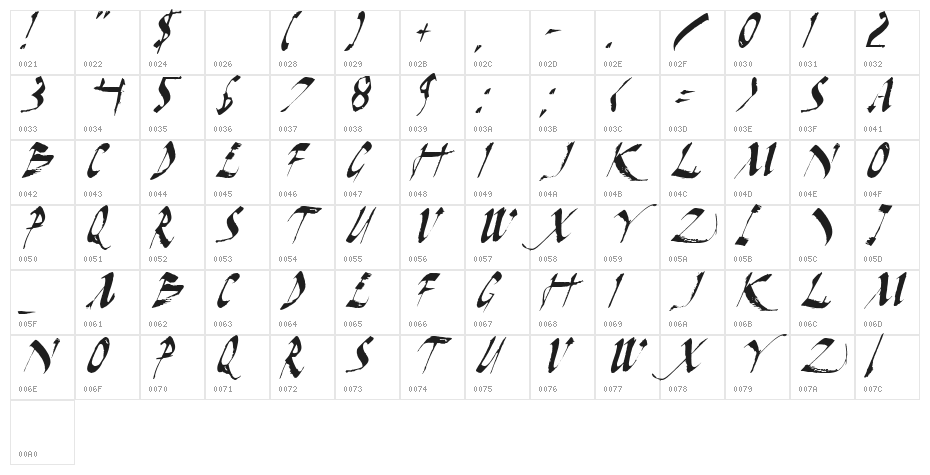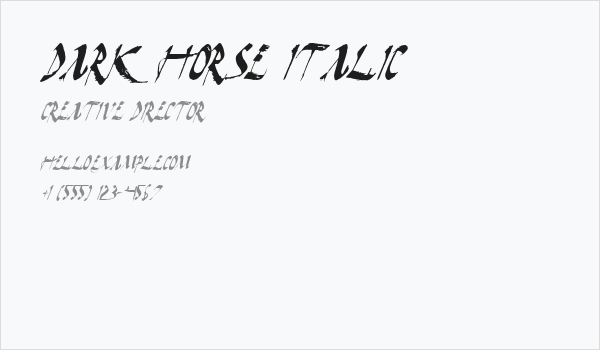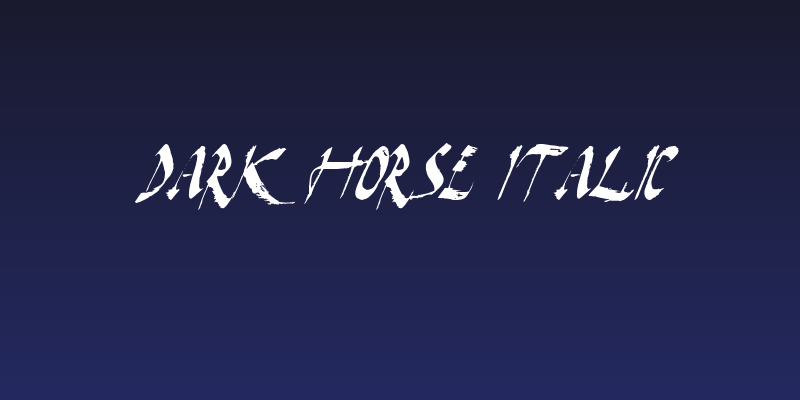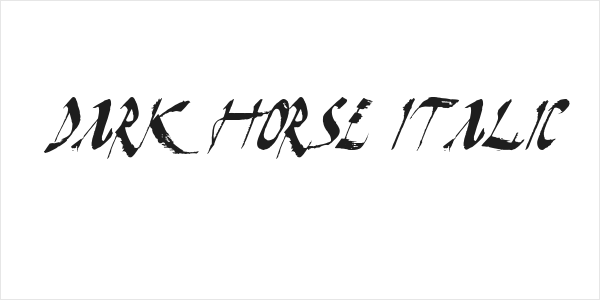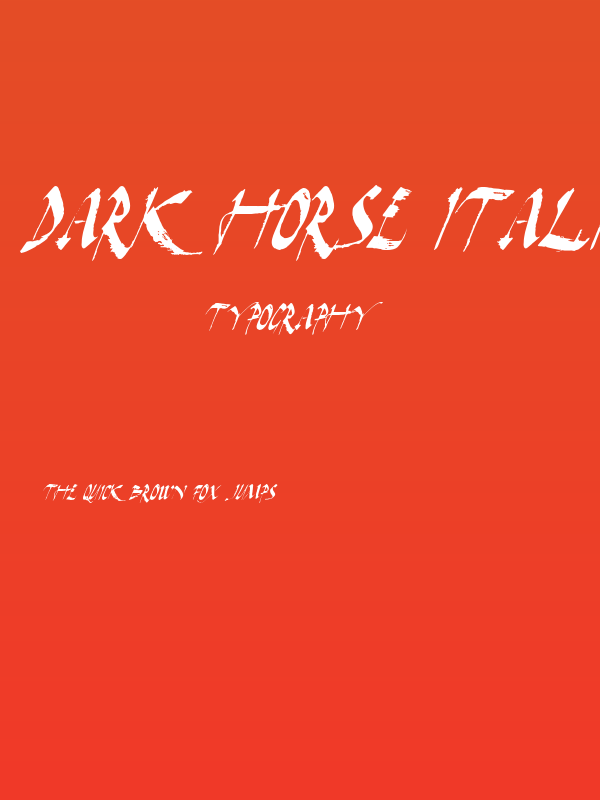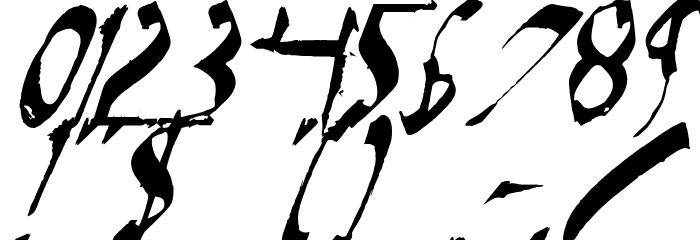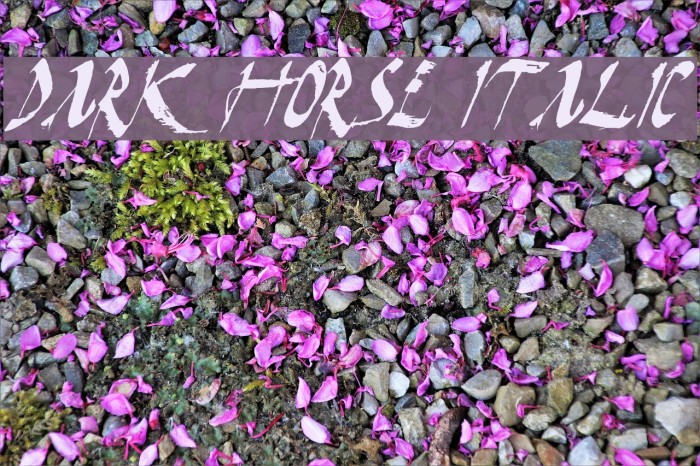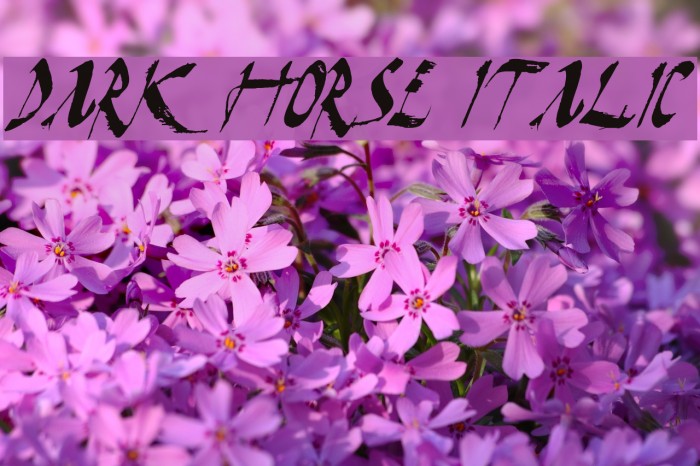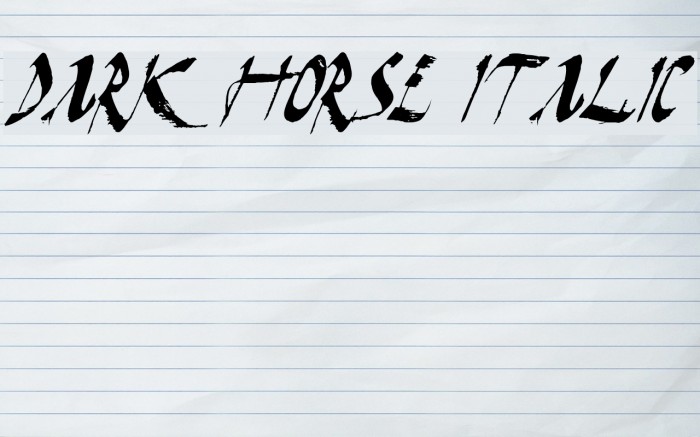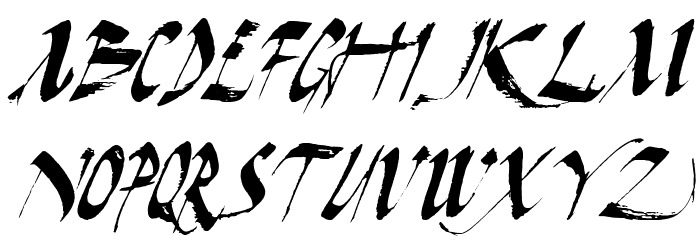
Dark Horse Italic Font
Dark Horse Italic Description
This font features a dynamic and expressive style, characterized by its bold, brush-like strokes that convey a sense of movement and energy. The letters are italicized, adding a sense of urgency and fluidity to the text. The strokes vary in thickness, creating a high contrast that enhances the dramatic effect. The overall appearance is reminiscent of calligraphy, with a modern twist that makes it suitable for contemporary designs. The characters are slightly condensed, allowing for efficient use of space while maintaining readability. This font is ideal for projects that require a bold statement, such as branding, headlines, and artistic designs.
| Width | Condensed |
| Overall Style | Modern, Decorative |
| Use Case | Headlines, Logos, Artistic designs |
| Proposed Projects | Branding, headlines, artistic designs, posters, and any project needing a bold, expressive typeface. |